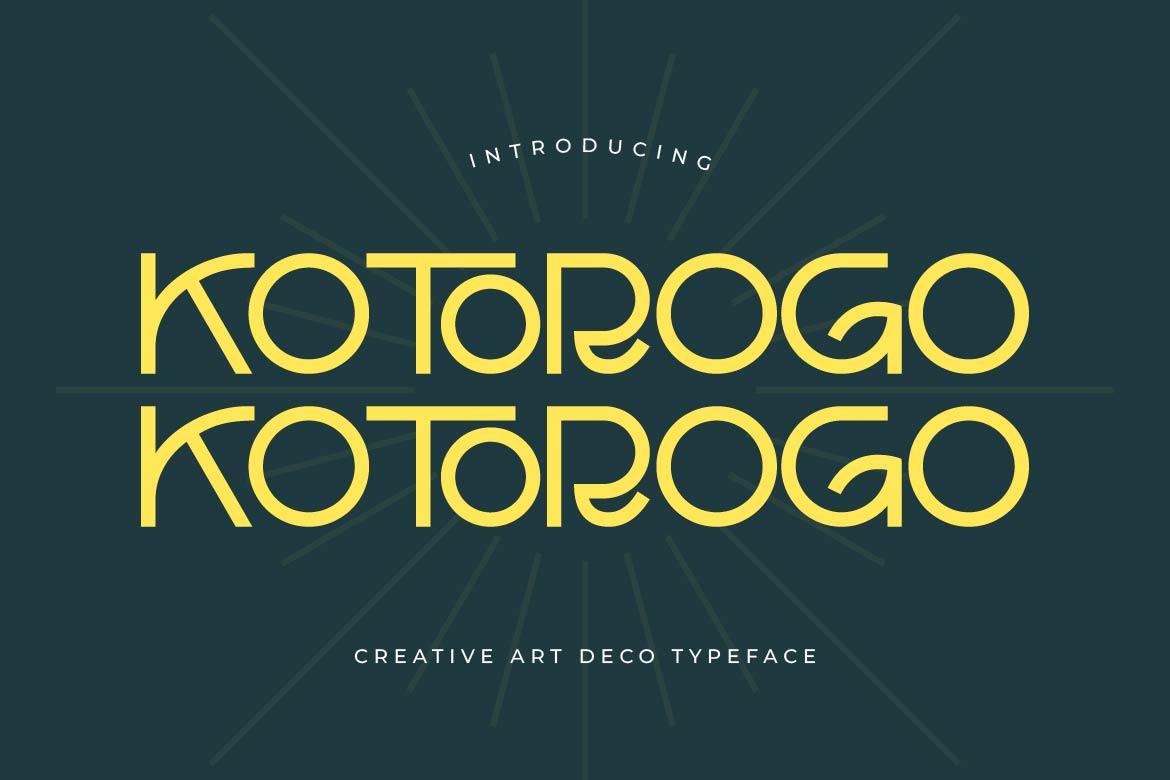
Kotorogo – Art Deco Display Typeface
Kotorogo is a creative art deco display typeface with a distinctive geometric structure. Its open, unclosed curves on letters like O, G, and C give the typeface a refined architectural quality, evoking the elegance of early 20th-century design while feeling entirely current.
Tall proportions and clean geometric construction give Kotorogo a confident, sophisticated presence at display size. The typeface goes beyond the standard alphabet with an extensive set of ligatures and alternates — including custom-drawn combinations for uppercase pairs like OO, TT, MM, FF, and more — turning ordinary letter sequences into distinctive decorative details.
Kotorogo is a strong fit for luxury branding, boutique logos, hotel and lounge signage, event invitations, magazine headlines, packaging, and any design that calls for a glamorous, vintage-inspired edge. Its art deco character also works beautifully for 1920s-themed events, fashion editorials, and premium lifestyle branding.
Elegant, geometric, and full of character — Kotorogo brings timeless art deco sophistication into modern design.
Kotorogo — a creative art deco display typeface with distinctive ligatures.